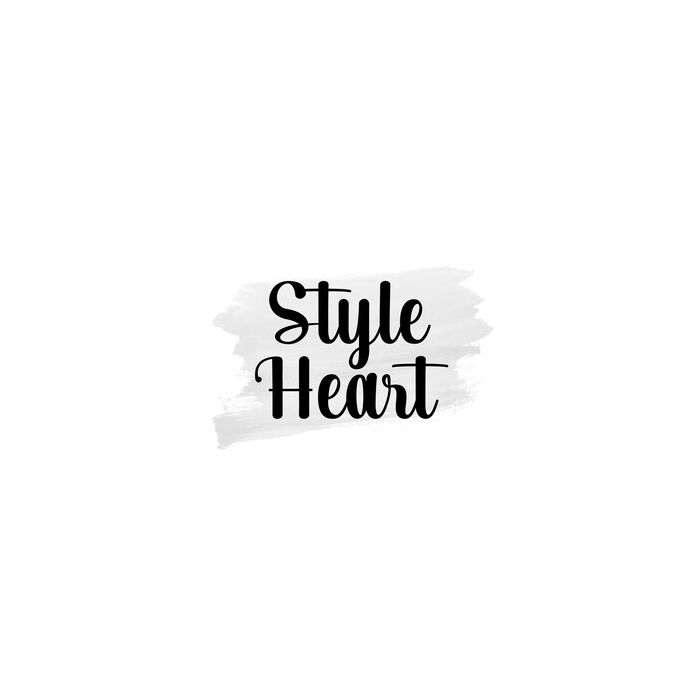
Style Heart handwritten script font that stands firm. The model is so beautiful bold, making it very suitable for your classy collection of designs. you can modify it according to your taste!